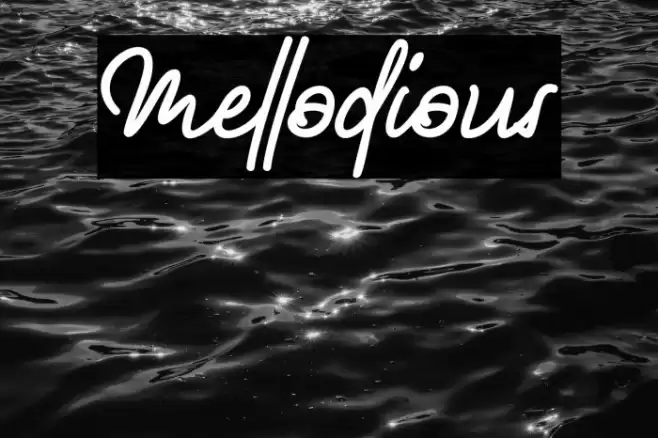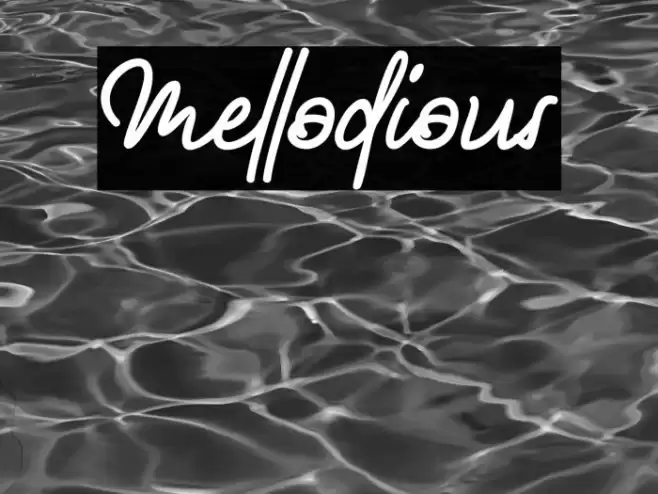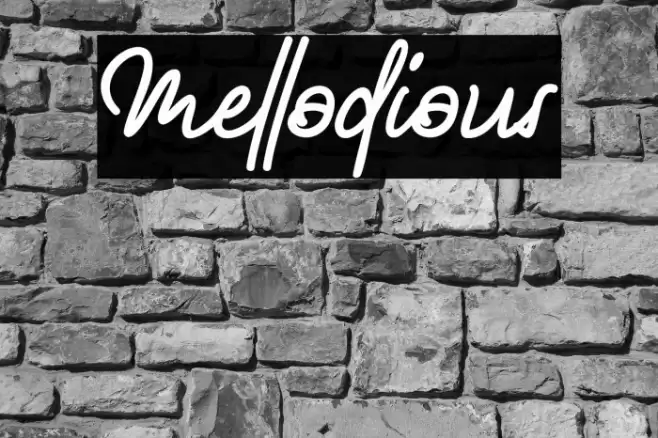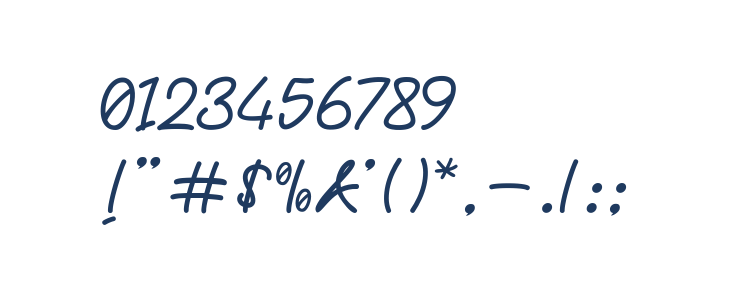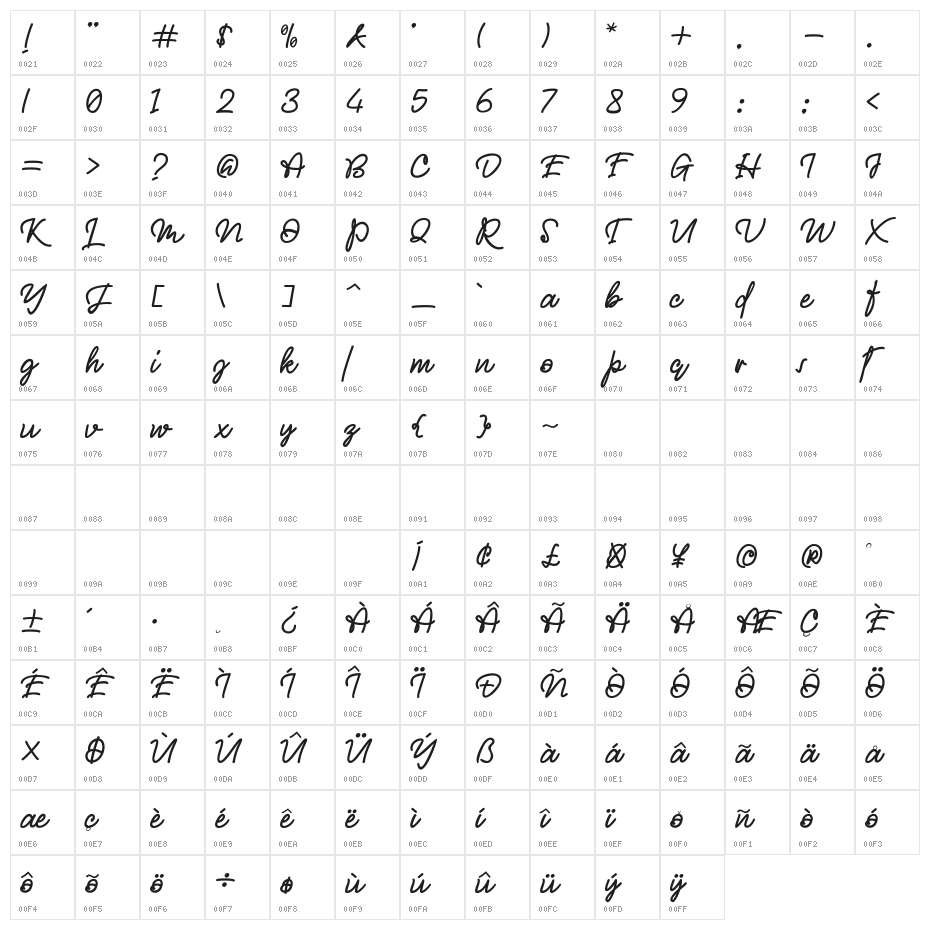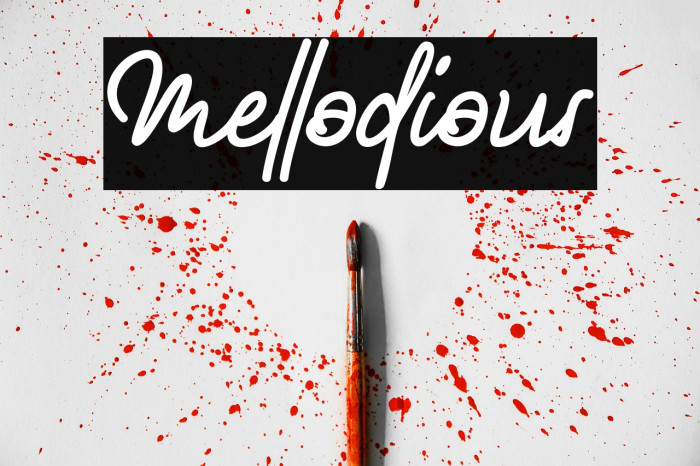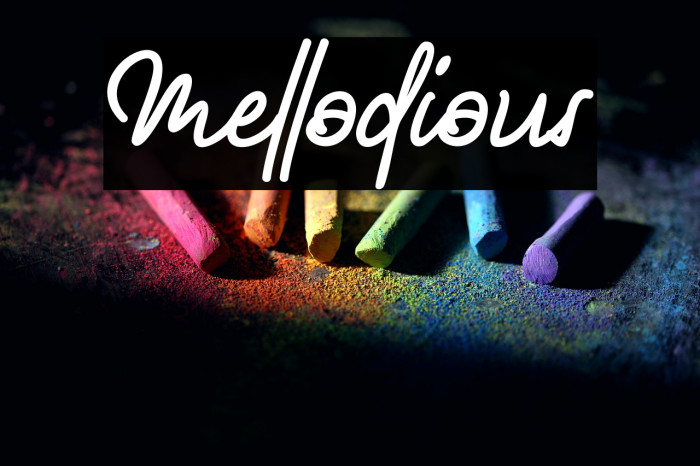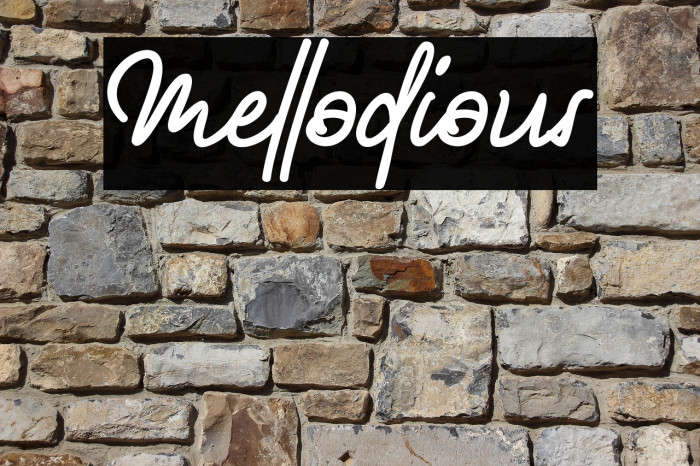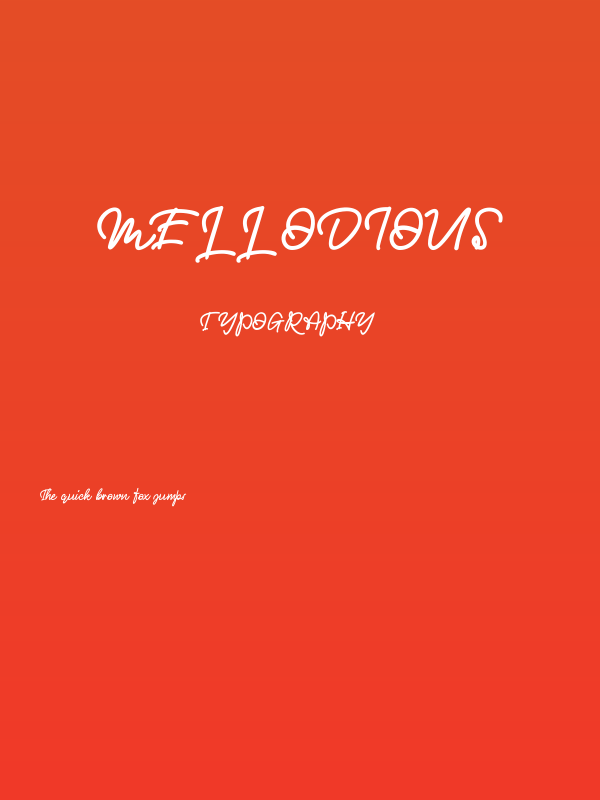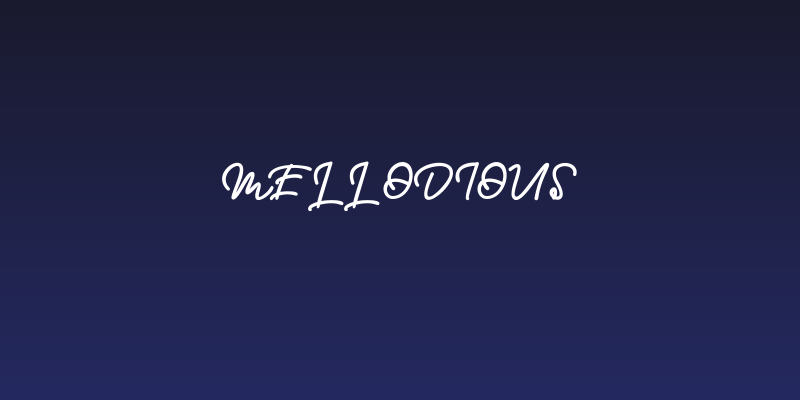
Mellodious Font
Mellodious Description
This font features a flowing, cursive style that mimics elegant handwriting. The uppercase letters are distinct with a slight slant, while the lowercase letters are connected, enhancing the script's fluidity. The numerals maintain the same cursive style, ensuring consistency across all characters. Special characters are also designed to match the overall aesthetic, making this font versatile for various uses. The strokes are smooth and moderately thick, providing good readability while maintaining a stylish appearance.
A flowing, cursive script font with elegant, connected letters from Regular fonts.
- Proposed Projects: Ideal for wedding invitations, greeting cards, personal branding, and elegant logo designs.
- Overall Style: Elegant, Handwritten
- Use Case: Logos, Invitations, Personal Branding